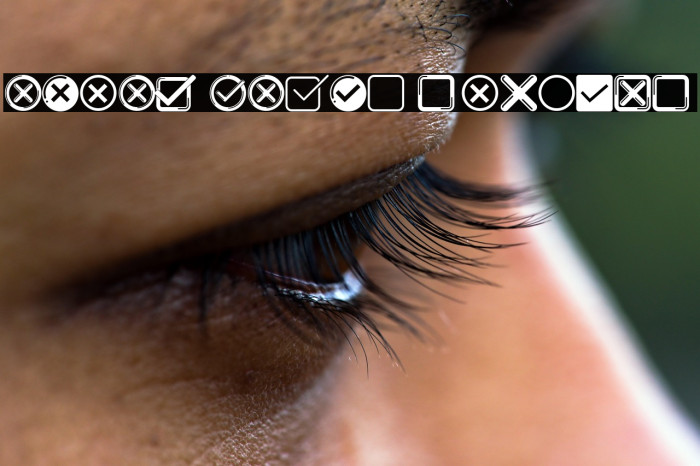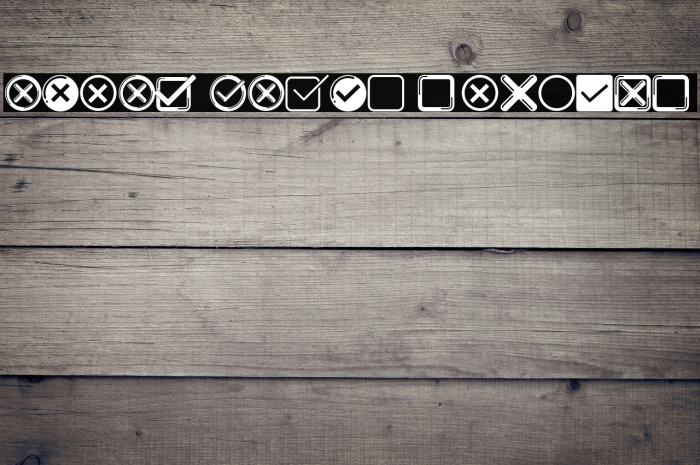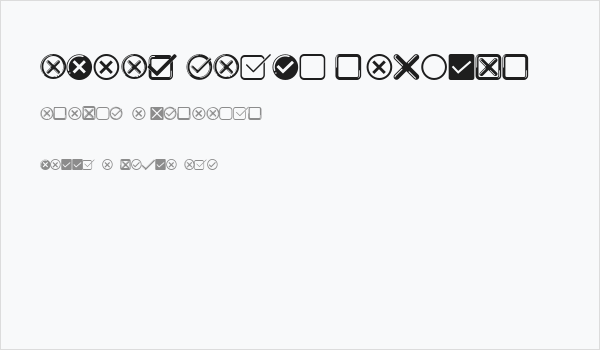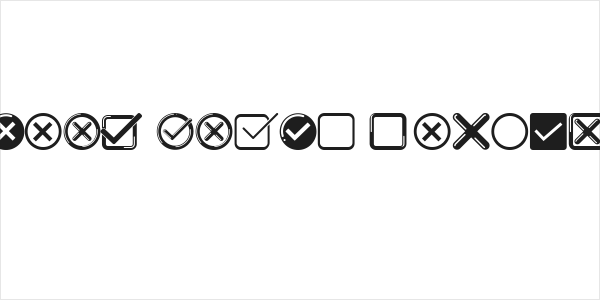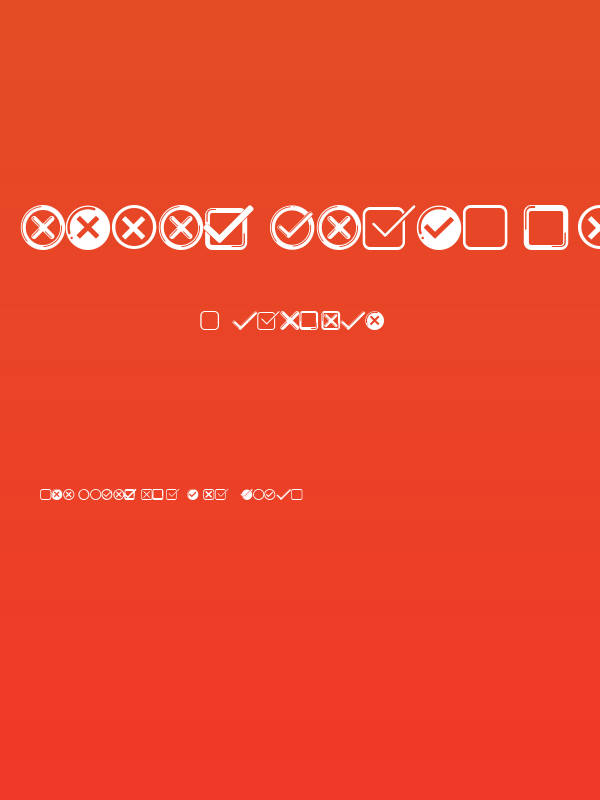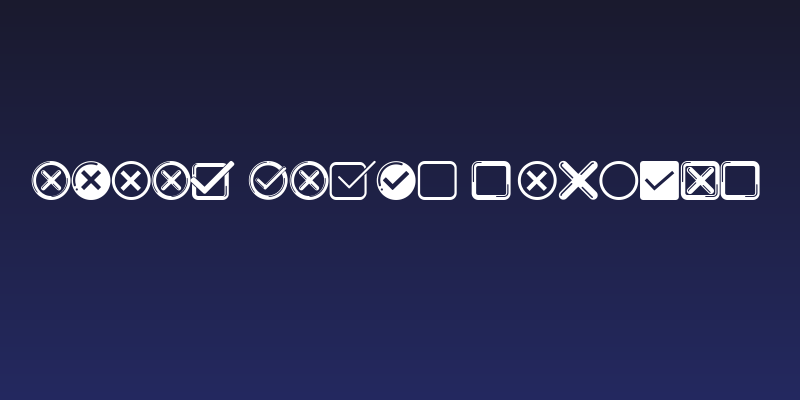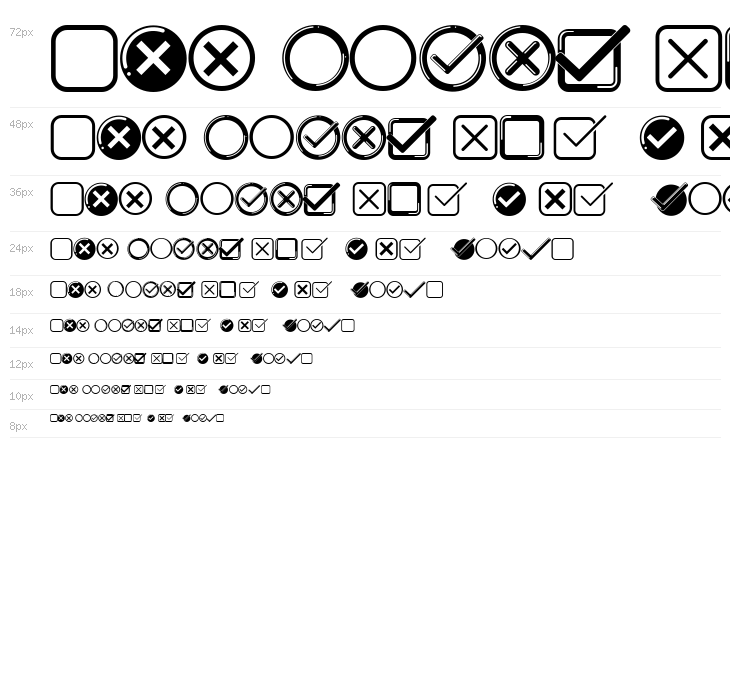
Check Icons Regular Font
Check Icons Regular Description
This set of icons features a variety of check and cross symbols enclosed in different shapes such as circles and squares. The icons are designed with bold outlines and a mix of filled and outlined styles, providing a versatile range of options for indicating selection or rejection. The icons are clean and modern, making them suitable for both digital and print applications. The consistent line weight and clear shapes ensure readability and visual appeal across different sizes.
| Use Case | Icons, User Interfaces, Forms |
| Proposed Projects | Ideal for use in user interfaces, forms, checklists, and any application requiring clear selection indicators. |